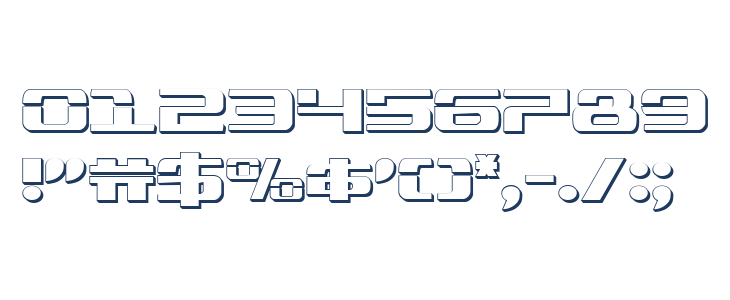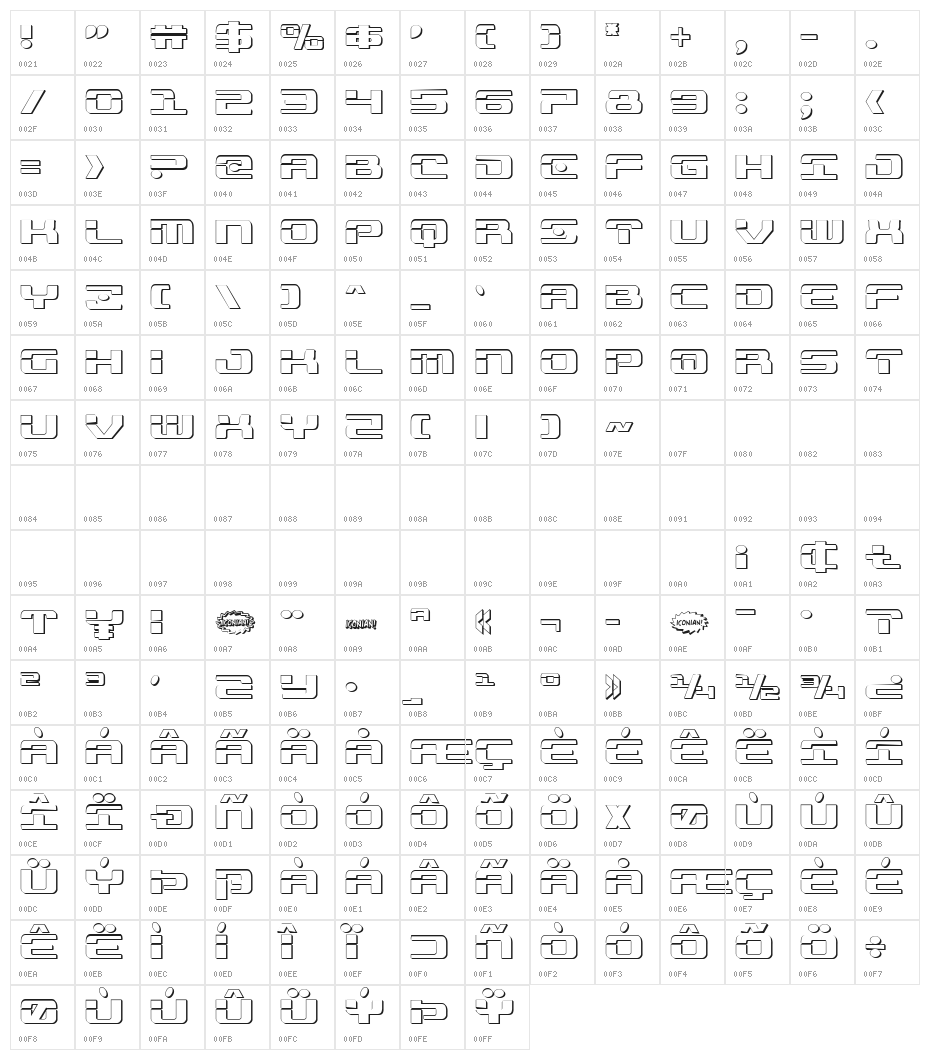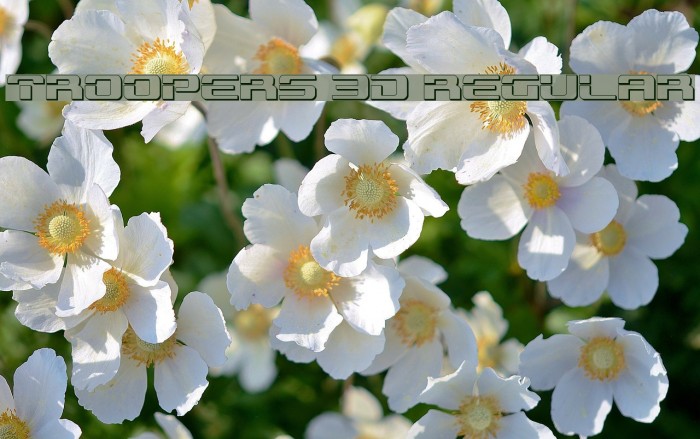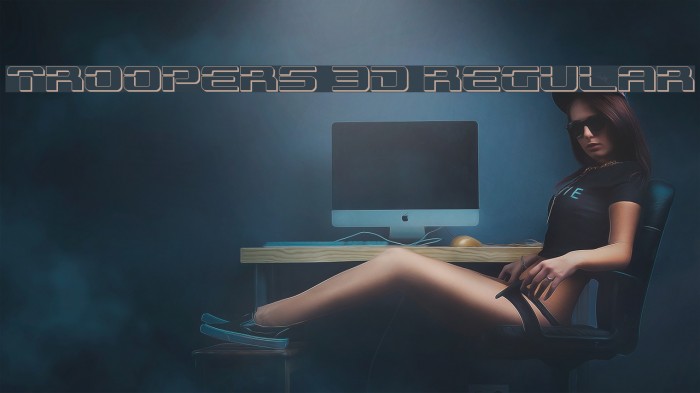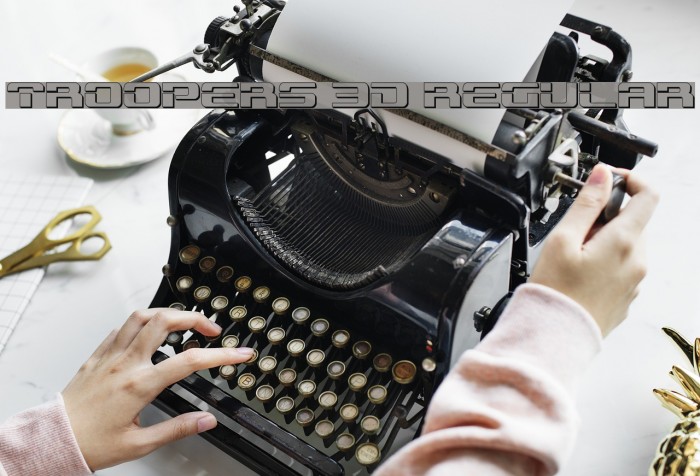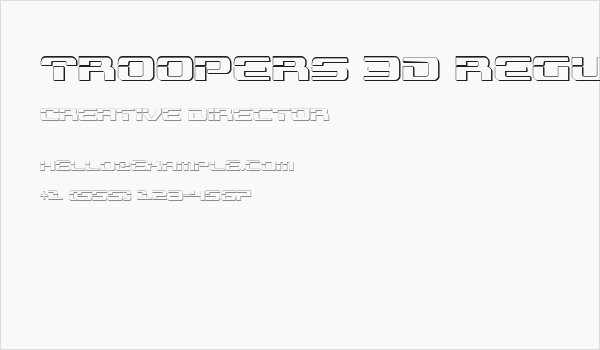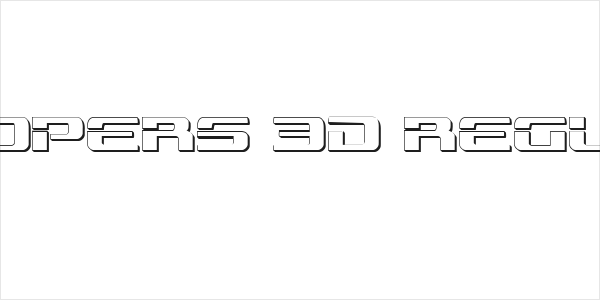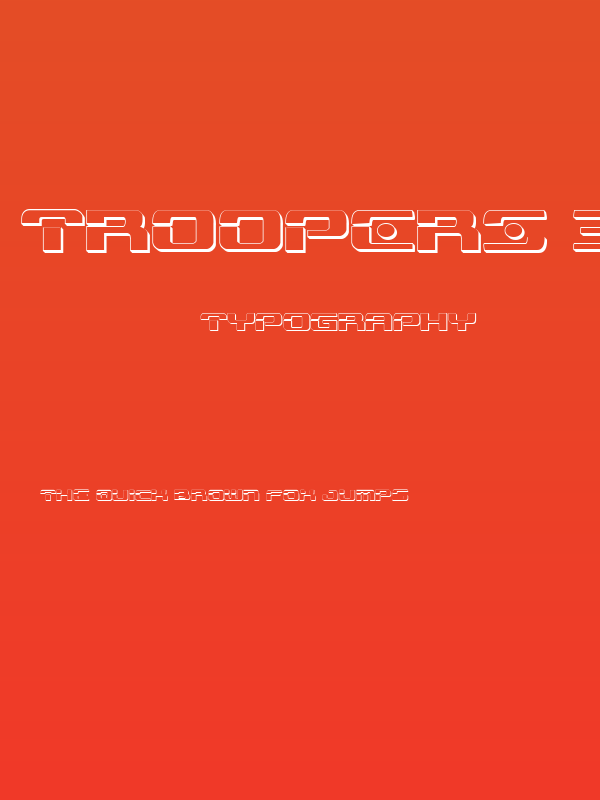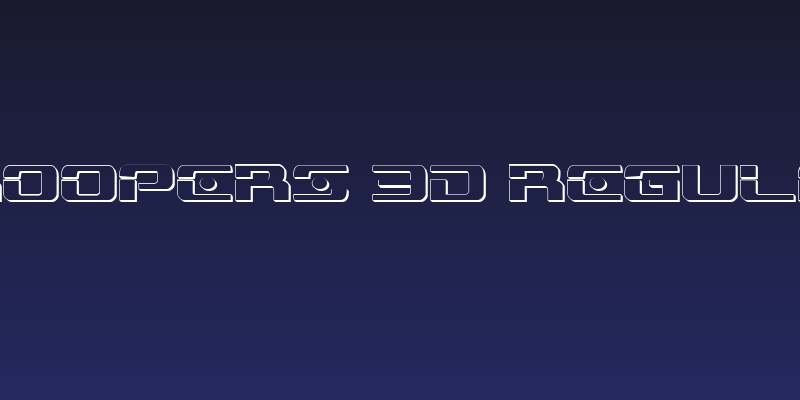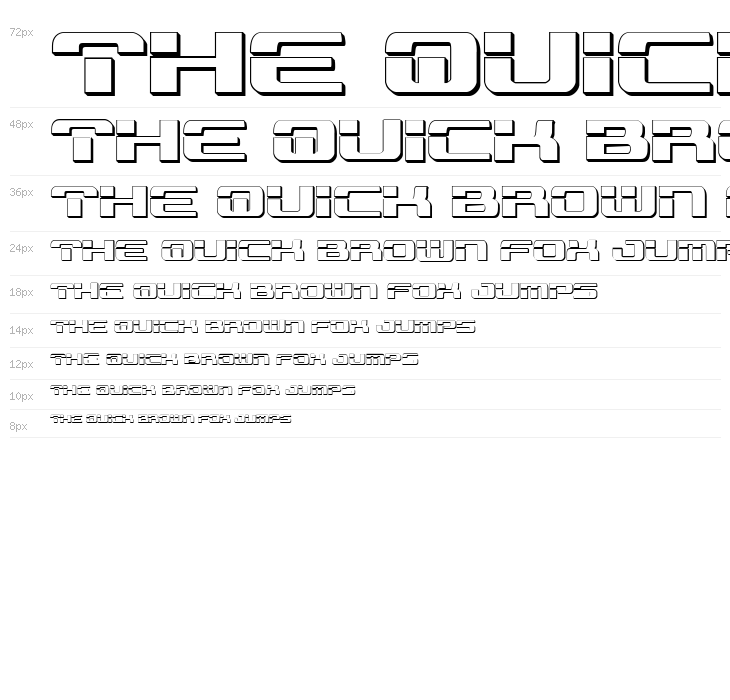
Troopers 3D Regular Font
Troopers 3D Regular Description
This font features a bold, futuristic design with a 3D effect that gives each character a distinct, layered appearance. The geometric shapes and clean lines create a sense of depth and dimension, making it ideal for projects that require a modern and dynamic look. The uppercase and lowercase letters maintain a consistent style, with sharp angles and a blocky structure that enhances readability. The numerals and special characters follow the same design principles, ensuring uniformity across all text elements. This font is perfect for creating eye-catching headlines, logos, and posters that demand attention.